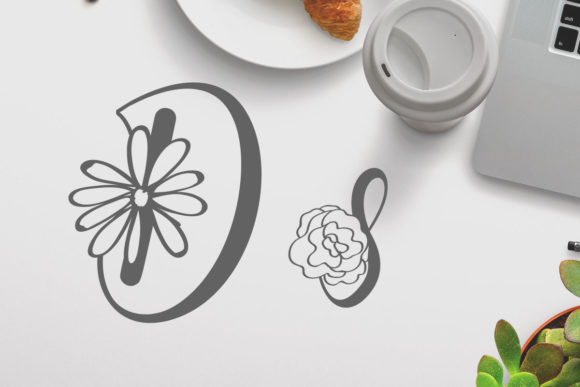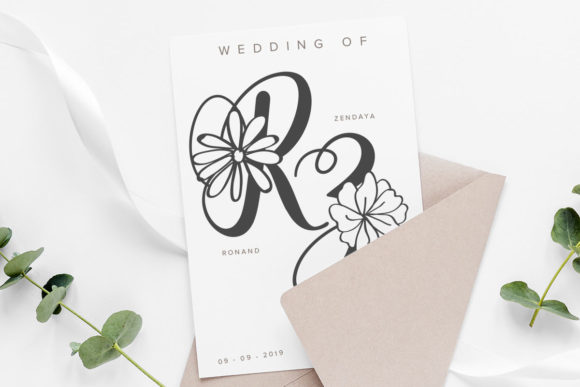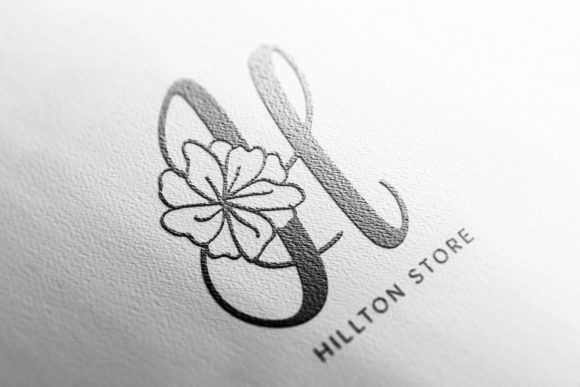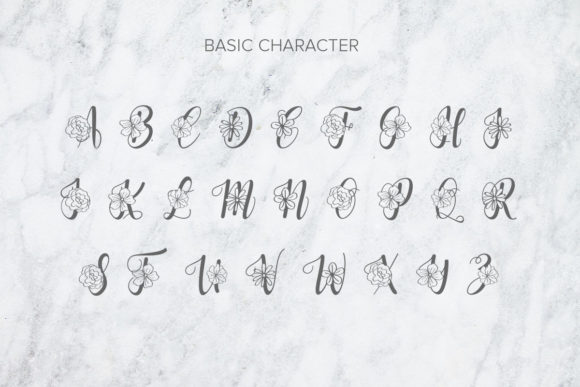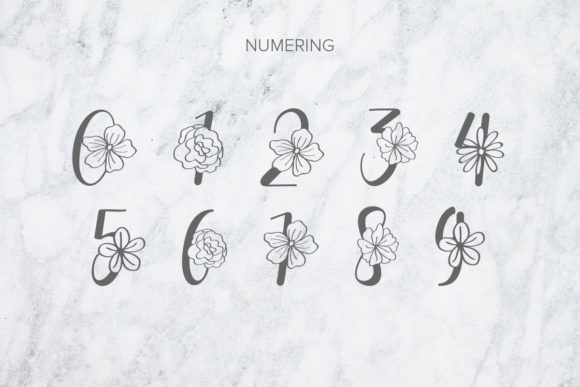
Introducing Flanela Monogram Font: Elevate Your Designs with Elegance
Are you on the hunt for a font that exudes sophistication and versatility? Look no further than the stunning Flanela Monogram Font. This gorgeous decorative font is sure to capture your heart with its unique style, making it perfect for a wide range of creative projects. From wedding invitations to social media posts, Flanela Monogram is the ideal choice for designers and crafters seeking to add a touch of elegance to their work.
What Makes Flanela Monogram Font So Special?
Flanela Monogram Font boasts an incredibly versatile style that can be used in various design applications. Its decorative flair makes it an excellent choice for:
- Wedding Invitations: Create beautiful, one-of-a-kind wedding invites that set the tone for the big day. The font’s elegant style ensures that your invitations will be cherished by the happy couple and their guests.
- Stationary Art: Add a personal touch to your stationery with Flanela Monogram. Perfect for creating custom notebooks, journals, or greeting cards, this font will make your designs stand out.
- Social Media Posts: Elevate your social media game with eye-catching posts that showcase your creativity. Flanela Monogram Font is ideal for creating engaging content that resonates with your audience.
- Crafting Projects: Whether you’re working on a DIY craft or a commercial project, Flanela Monogram Font is the perfect addition to your design toolkit.
Key Features of Flanela Monogram Font
So, what makes Flanela Monogram Font so unique? Here are some of its key features:
- Unique Monogram Style: The font’s monogram style is both elegant and sophisticated, making it perfect for designs that require a touch of luxury.
- Highly Versatile: Flanela Monogram Font can be used in a variety of design applications, from digital projects to print materials.
- Easily Customizable: The font is easy to customize, allowing you to adjust it to suit your design needs.
Tips for Using Flanela Monogram Font
To get the most out of Flanela Monogram Font, here are some tips to keep in mind:
- Experiment with Different Sizes: Play around with different font sizes to create visual interest and hierarchy in your designs.
- Pair with Complementary Fonts: Combine Flanela Monogram Font with complementary fonts to create a unique and harmonious design.
- Use in Combination with Graphics: Add an extra layer of depth to your designs by combining Flanela Monogram Font with graphics or illustrations.
In conclusion, Flanela Monogram Font is a stunning decorative font that offers a unique blend of elegance and versatility. Whether you’re a designer or crafter, this font is sure to become a staple in your design toolkit. With its wide range of applications and easy customization options, Flanela Monogram Font is the perfect choice for anyone looking to elevate their designs and add a touch of sophistication.
Get Ready to Fall in Love with Flanela Monogram Font